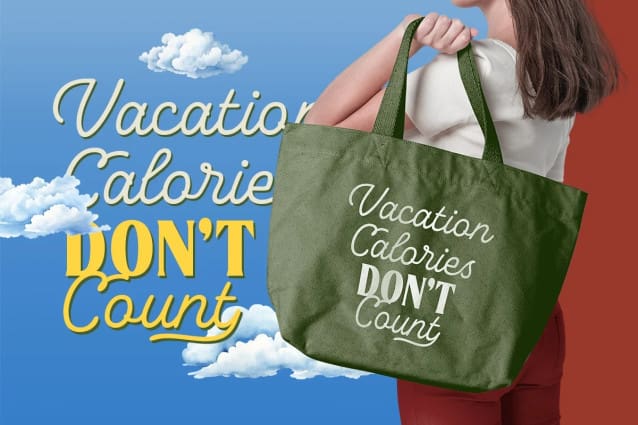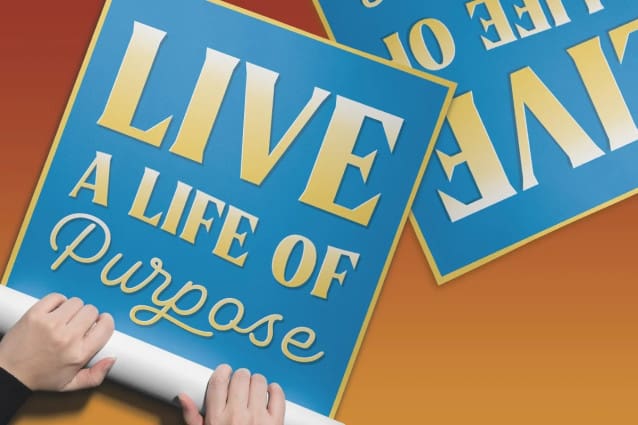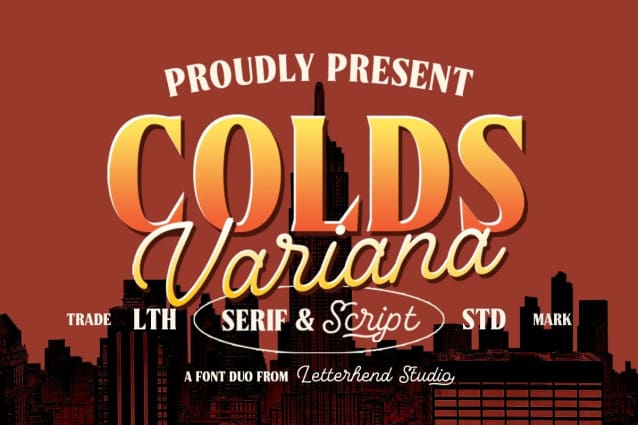
Colds Variana Font Duo
Colds Variana Font Duo – a classy font duo with monline script and classic serif in one typeface. This type of font perfectly made to be applied especially in logo, headline, signage and the other various formal forms such as invitations, labels, logos, magazines, books, greeting / wedding cards, packaging, fashion, make up, stationery, novels, labels or any type of advertising purpose.